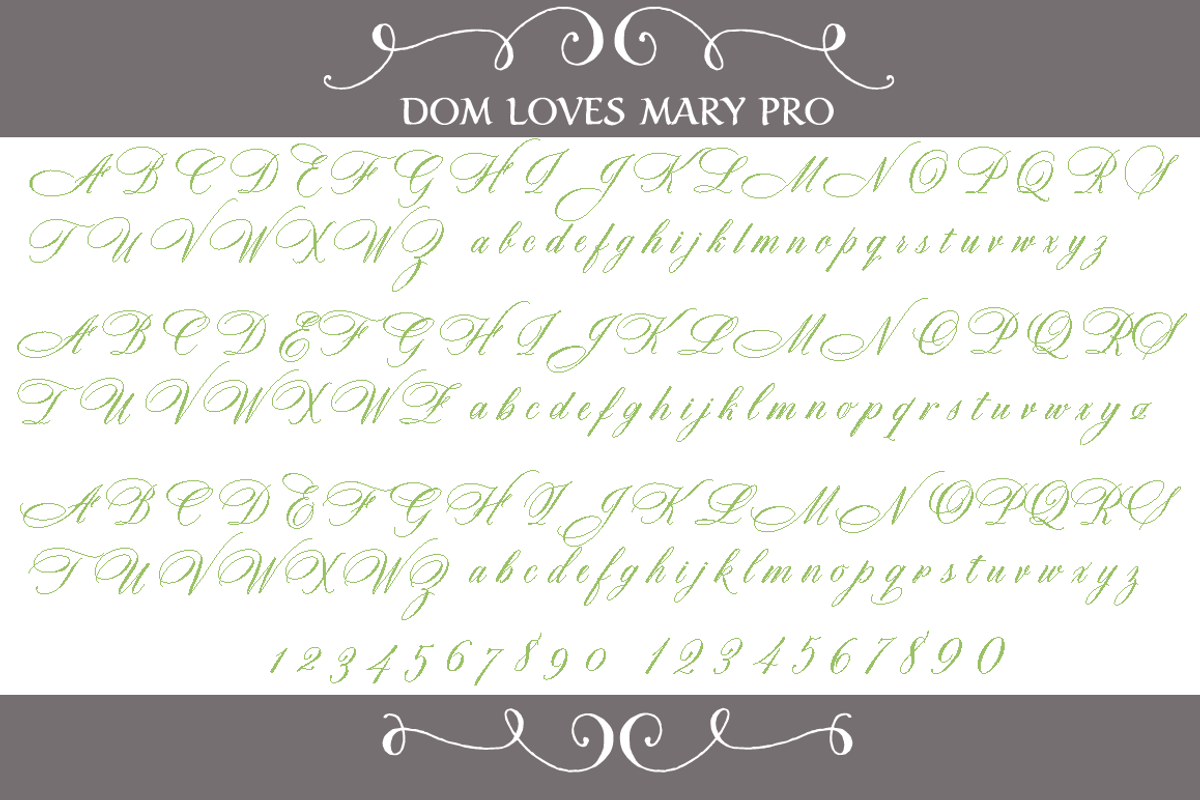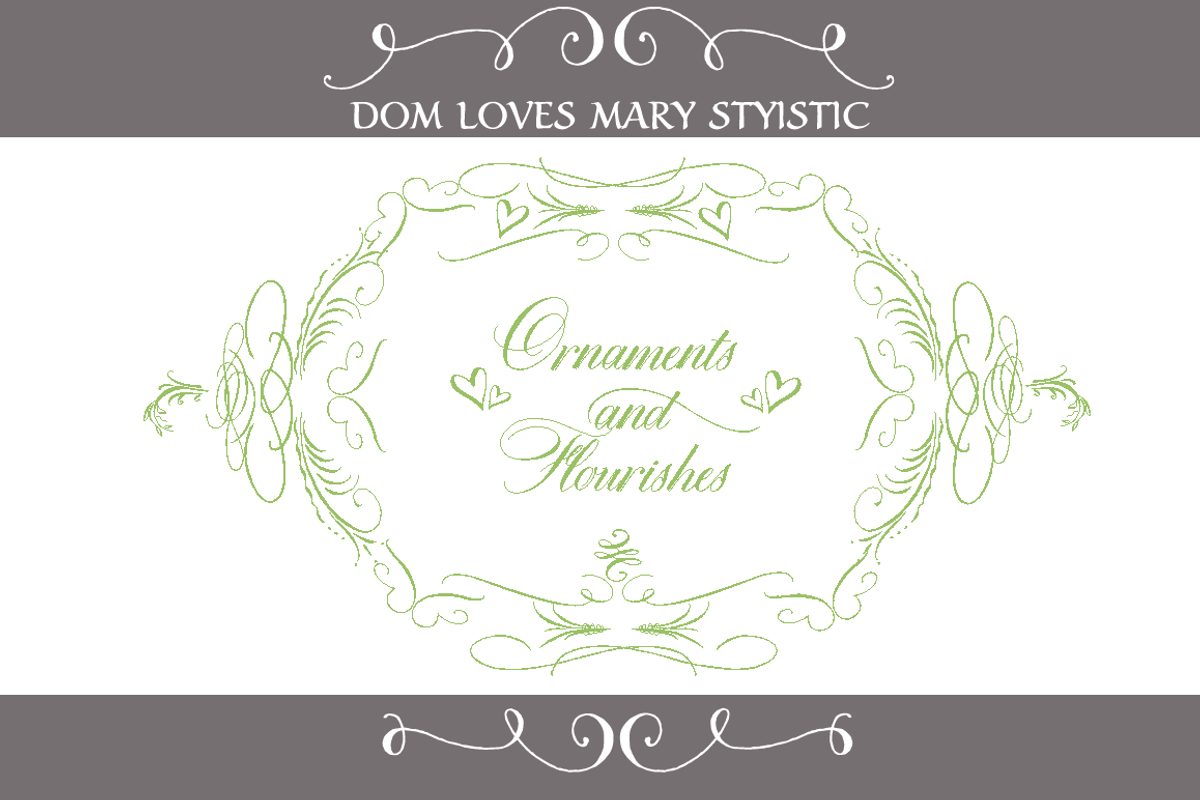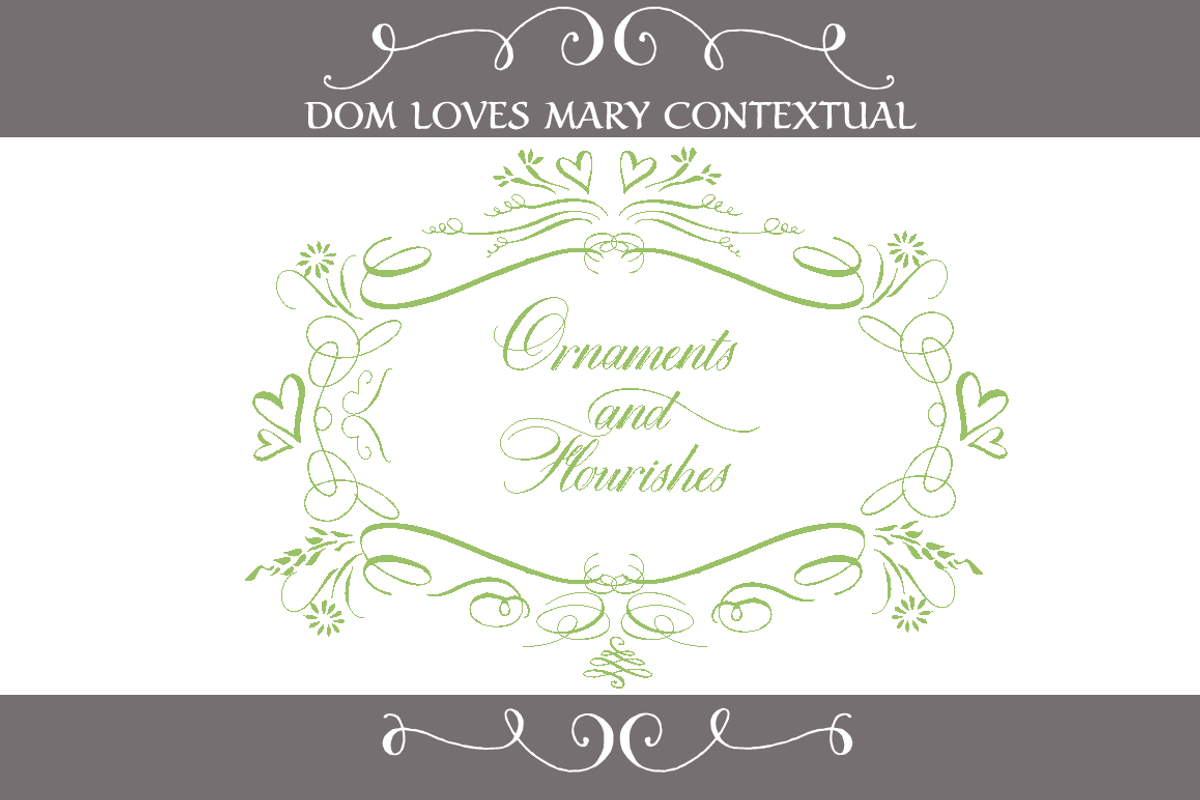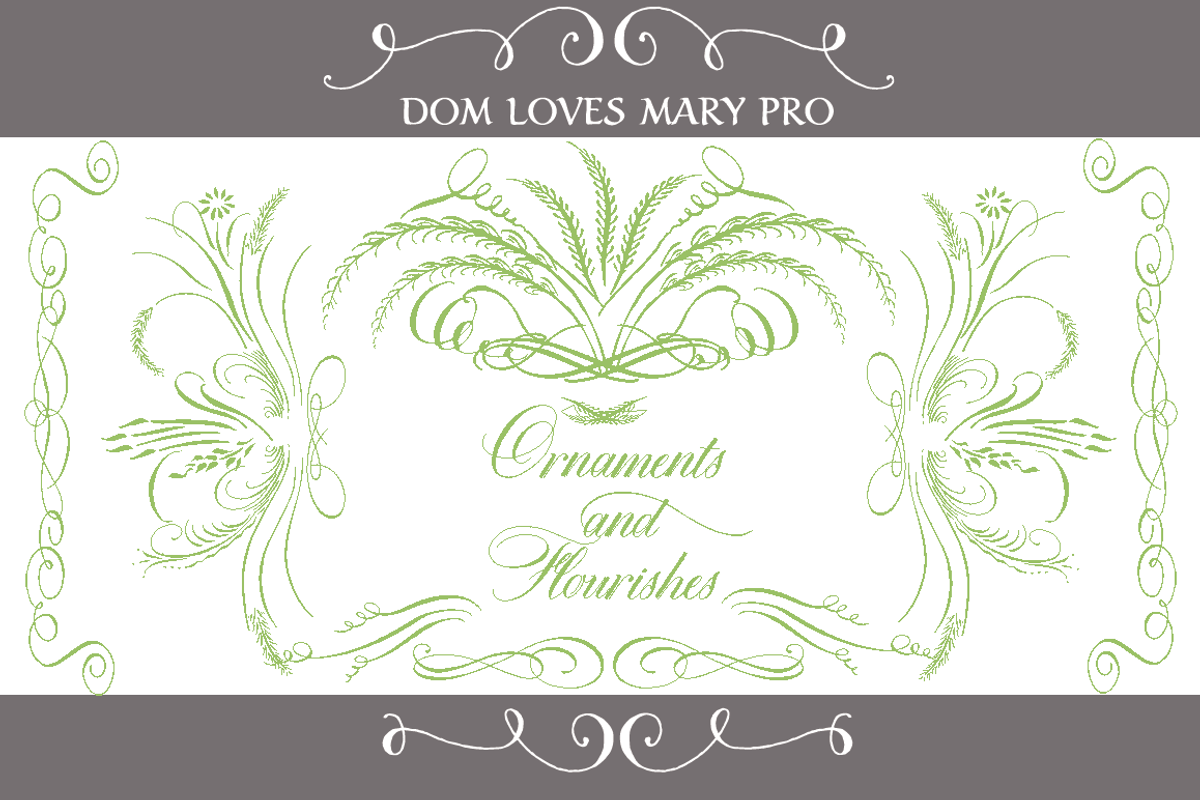
Sale-Dom Loves Mary Pro Font
Sale-Dom Loves Mary Pro Font by Debi Sementelli is a font selected for branding, posters, packaging, typography.
- In addition to the wide variety of letters, the PRO font contains 250 flourishes and a selection of decorative ornaments.
Why Sale-Dom Loves Mary Pro Font is worth a look
Sale-Dom Loves Mary Pro Font by Debi Sementelli fits naturally into Branding, posters, packaging, typography.